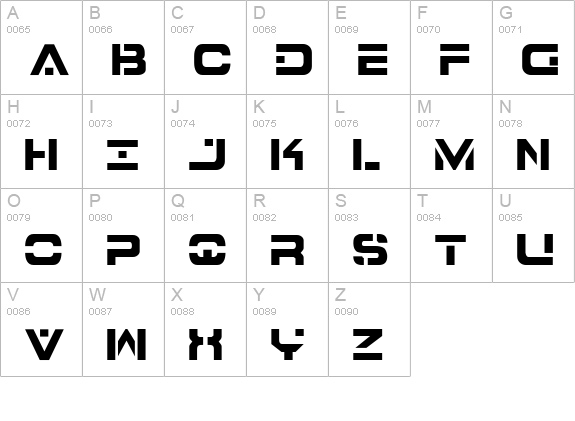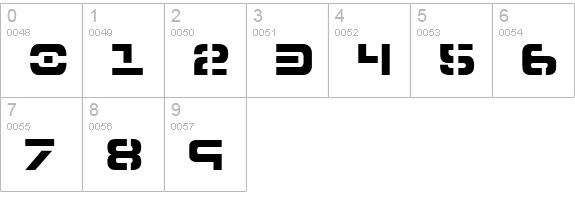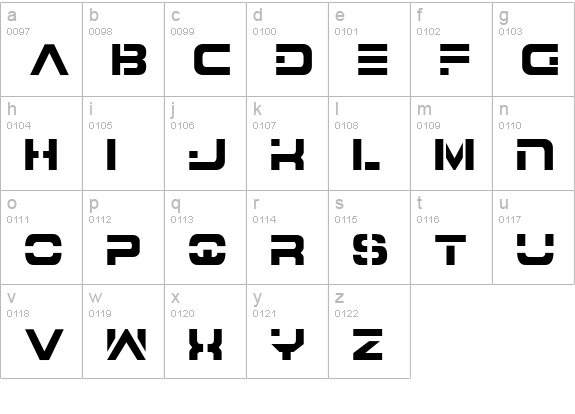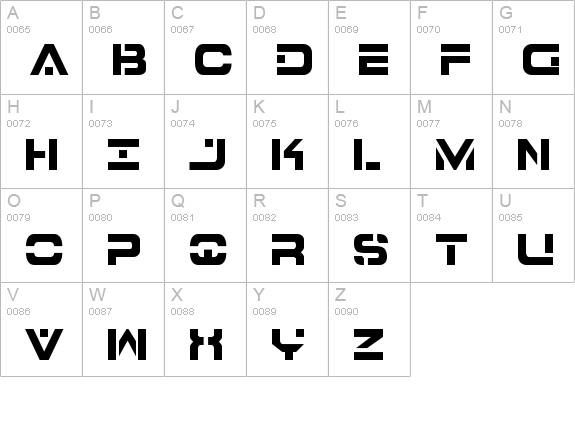
7th Service Semi-Condensed is a distinctive, condensed-width variant in the 7th typeface family \xE2\x80\x94 well suited to design and typography projects.
Introducing the captivating and versatile 7th Service Semi-Condensed font! This modern typeface strikes the perfect balance between elegance and readability, making it ideal for a wide range of design projects. With its sleek and streamlined appearance, 7th Service Semi-Condensed exudes sophistication and professionalism. The beauty of this font lies in its semi-condensed structure, allowing for more text to fit in limited spaces without compromising legibility. Whether used for branding, editorial design, posters, or web design, 7th Service Semi-Condensed will bring a touch of refinement to any project. Best of all, this exceptional font is available for free download exclusively at FontsMarket.com. Don't miss out on the opportunity to enhance your designs with the timeless appeal of 7th Service Semi-Condensed. Download it now and elevate your creative endeavors to new heights!